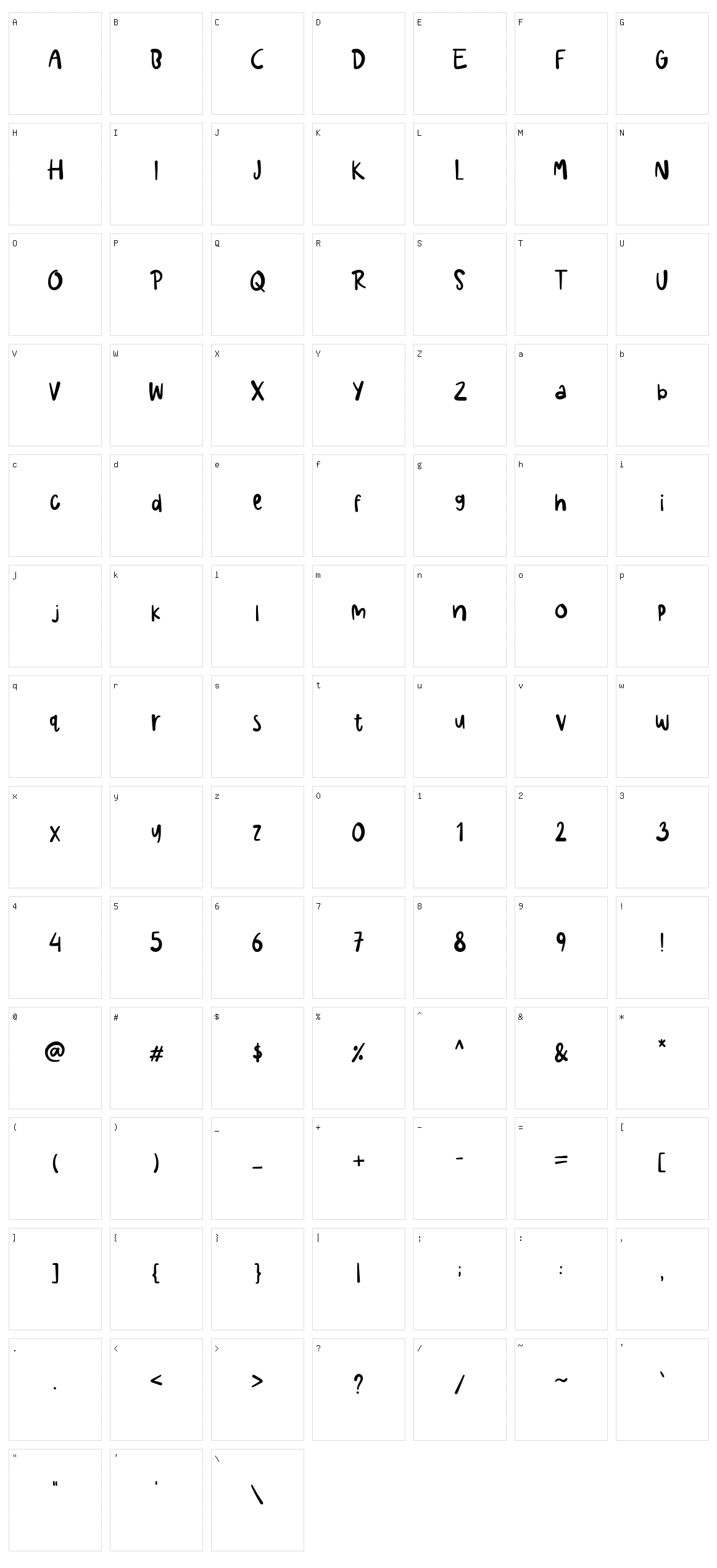
The free font Sing Buneng Bae is carefully designed by Allouse Studio, showcasing a thoughtful balance of creativity and usability and falls under the Cartoon font style. When you download the ZIP file, it contains only 48.16 KB of font files, making it lightweight and quick to download. Please review the license details below to understand permitted usage and distribution rights. If license information is not available, we recommend using this font for personal projects only or contacting the author directly for commercial usage permissions.